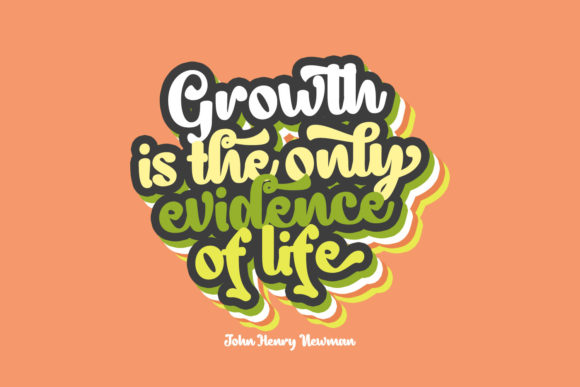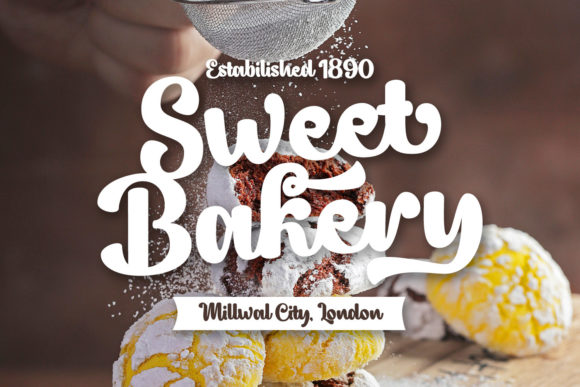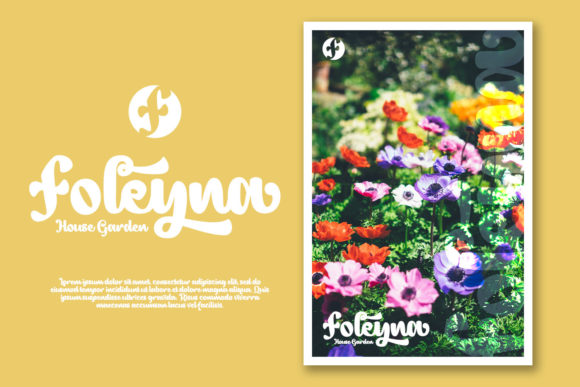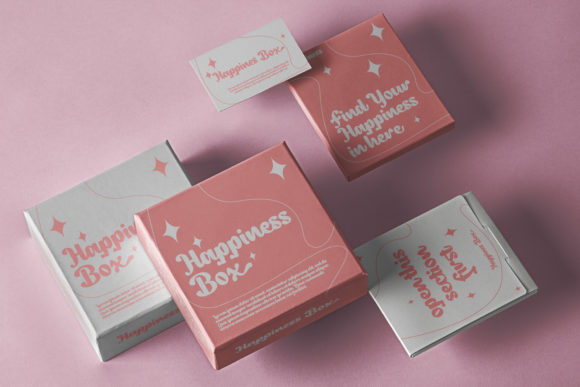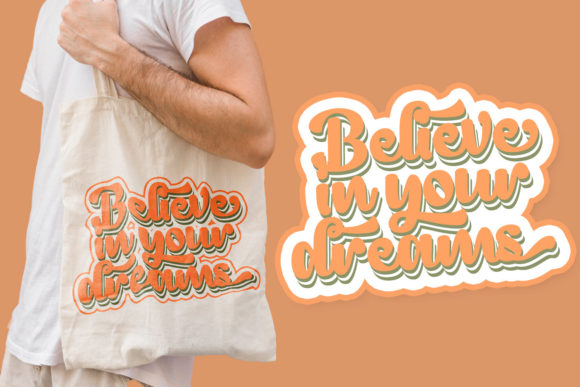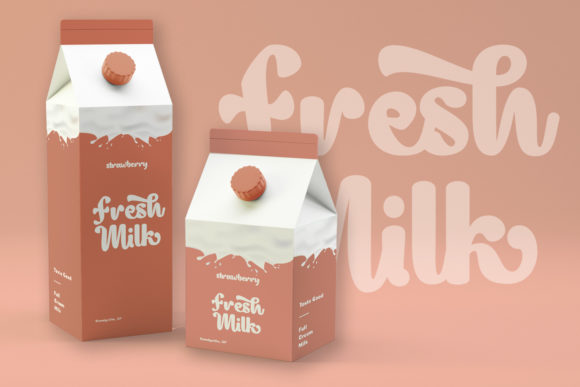
A First Impression: Dry Hayrick Font Review
Dry Hayrick is a unique and chic display font that has quickly become a favorite in my design toolkit. Here’s what I love about it:
- ✨ Unique and eye-catching design: Dry Hayrick has a distinct, elegant feel that sets it apart from more traditional fonts.
- 💻 Crafted for versatility: Dry Hayrick works beautifully for a range of projects, from branding and advertising to packaging and more.
A Few Quirks to Consider
While I adore Dry Hayrick, there are a few things to keep in mind:
- 🤔 Legibility at small sizes: As with many display fonts, Dry Hayrick can be a bit tricky to read at smaller sizes. Make sure to test it out in your design to ensure it works for your specific project.
- ⚠️ Limited use in body text: While Dry Hayrick is stunning as a display font, it’s not the best choice for longer blocks of body text. Stick to it for headlines and titles for the most impact.
The Story Behind Dry Hayrick
Dry Hayrick was designed with the goal of creating a unique, eye-catching display font that would stand out in any design. The designer drew inspiration from classic typography and modern trends, blending traditional and digital elements to create something entirely new. The result is a font that’s both elegant and versatile, perfect for a range of creative projects.
- Q: Is Dry Hayrick suitable for body text?
- A: While Dry Hayrick is stunning as a display font, it’s not recommended for longer blocks of body text. Stick to it for headlines and titles for the most impact.